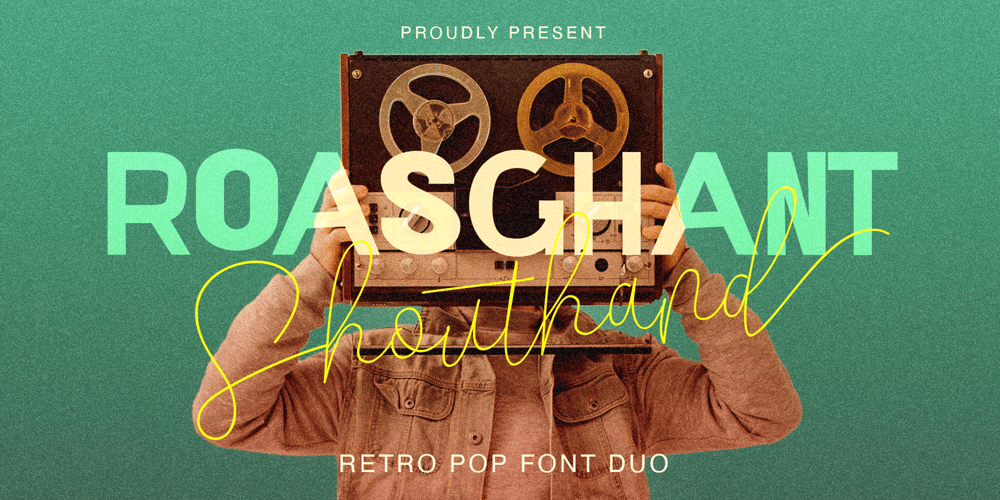
Roasghant Duo
Roasghant Duo font
Roasghant Duo Font Family was designed by Rossy Fitrika Jamil and published by Occy Design. Roasghant Duo contains 2 styles and family package options. Roasghant Font Duo comes with a combination of modern and elegant fonts, namely serif and signature style. While maintaining a feminine and elegant impression combined with a beautiful Luxury Scripts which is a perfect combination to your various design needs.This handcrafted style makes it perfect for logos & branding, invitations, stationery, wedding designs, social media, advertisements, printed quotes, product packaging, labels, photography, watermarks, special events, or even magazine layouts.FILE INCLUDE Roasghant Serif Shouthand Script Luxury Font Duo supports the following languages; English, French, Italian, Spanish, Portuguese, German, Swedish, Norwegian, Danish, Dutch, Finnish, Indonesian, Malay, Hungarian, Polish, Croatian, Turkish, Romanian, Czech, Latvian, Lithuanian, Slovak, Slovenian.